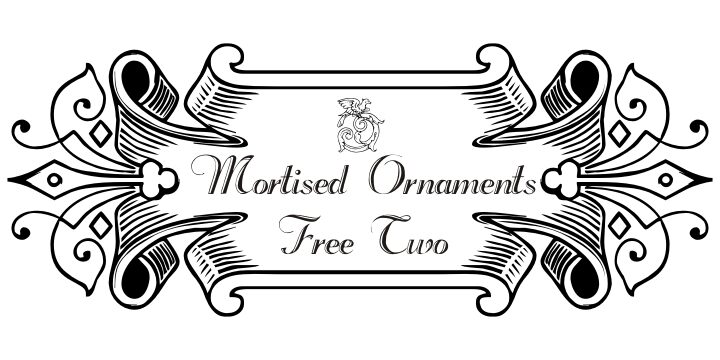
Mortised Ornaments Two, a captivating creation by Intellecta Design, exudes a timeless, ancient allure. Meticulously crafted with intricate floral motifs, this dingbat font weaves a tapestry of elegance and sophistication. The ornate, frame-like designs evoke a sense of grandeur, transporting the viewer to a bygone era of refined artistry. Mortised Ornaments Two's striking visual presence is poised to elevate any design project, adding depth and character with its unique, ornamental flair.
This versatile font lends itself seamlessly to a variety of applications, from editorial design and stationery to packaging and branding. Its ornamental elements can accentuate special event invitations, add a touch of elegance to book covers, or breathe life into product labels. Mortised Ornaments Two's ability to seamlessly integrate with diverse design styles makes it an invaluable asset for creative professionals seeking to infuse their work with a captivating, vintage-inspired aesthetic.
Mortised Ornaments Free Two